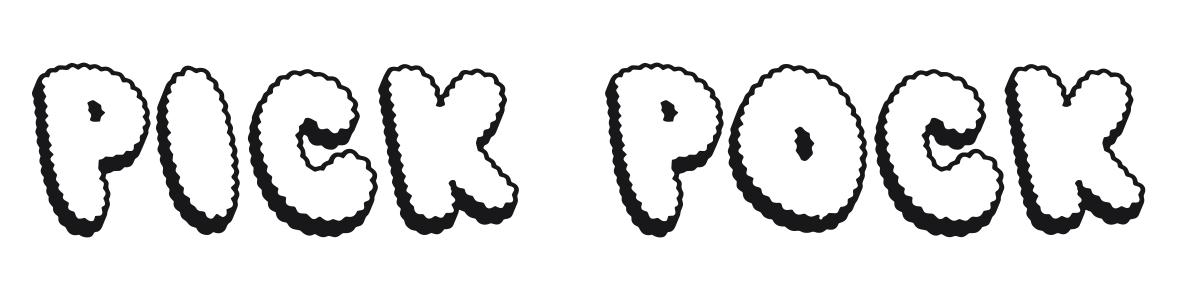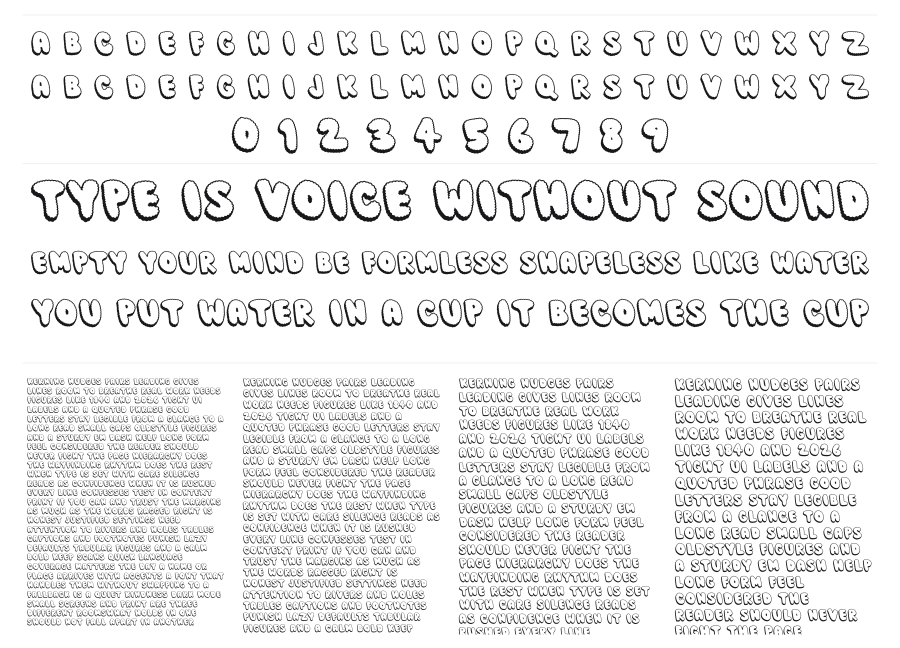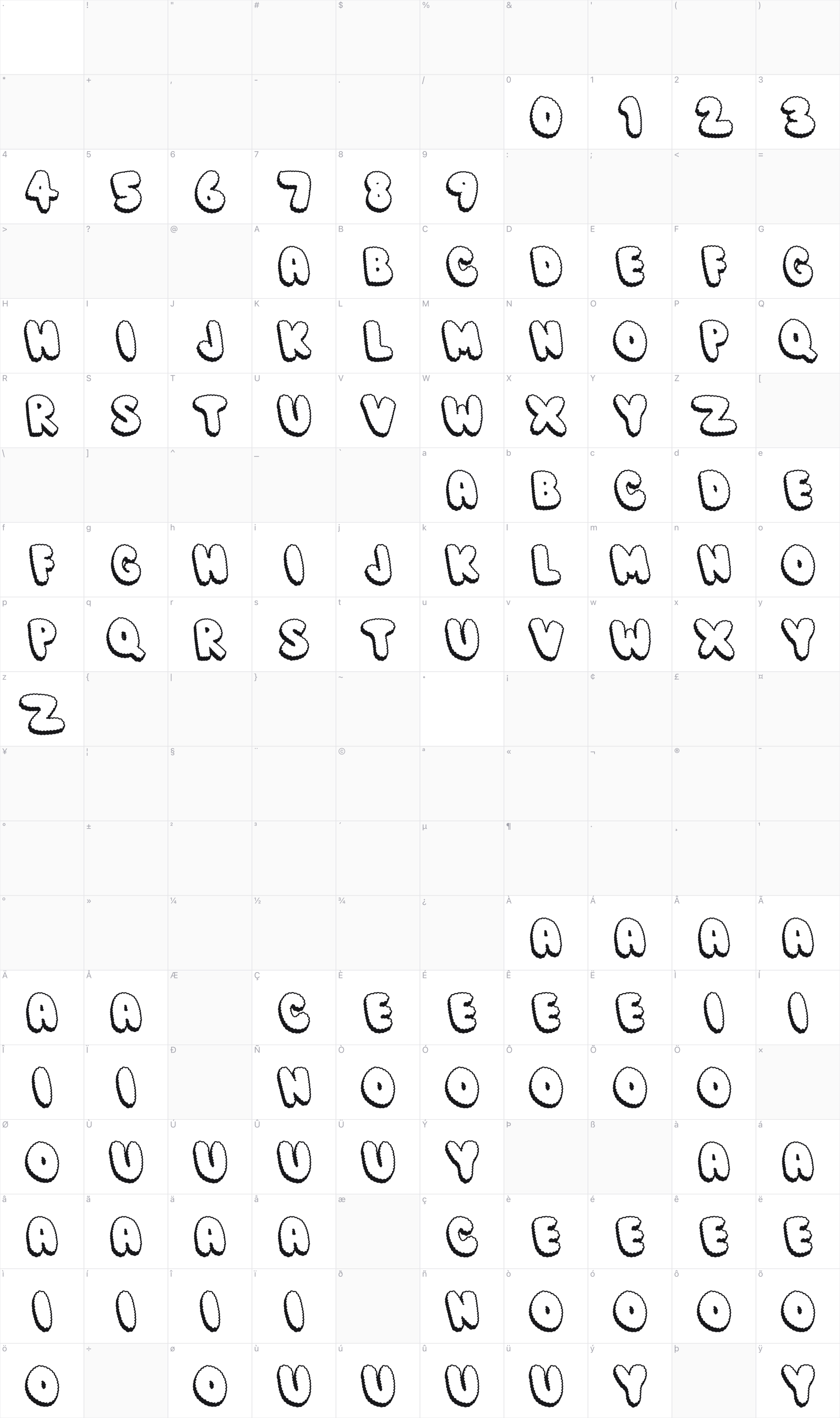
Pick Pock
Pick Pock is a bold bubble-display font with thick outlines and a drop shadow that gives each character a layered, inflated look. The heavily rounded forms and near-zero stroke contrast lean firmly into cartoon and comic territory. It brings an immediately cheerful, high-energy feel to headlines, packaging, and youth-oriented projects.